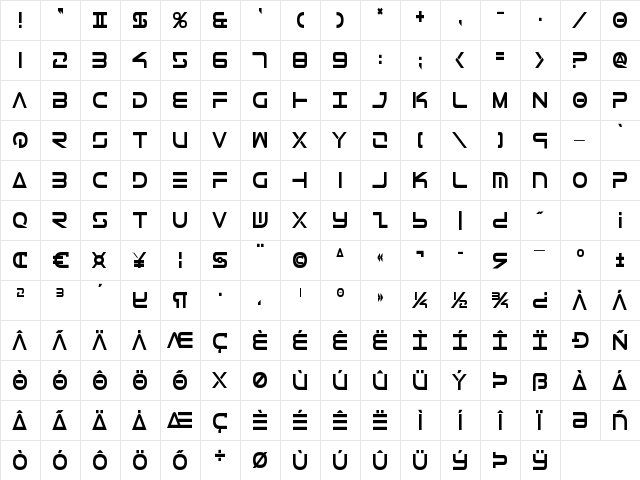
Tele-Marines Condensed Bold Condensed Bold
Design Context for Tele-Marines Condensed Bold
Tele-Marines Condensed Bold is a composed and adaptable typeface that performs quietly and consistently across a wide range of design contexts. Its bold stroke weight gives it real presence on the page. Its narrow stance lets it pack a punch even in space-constrained designs.